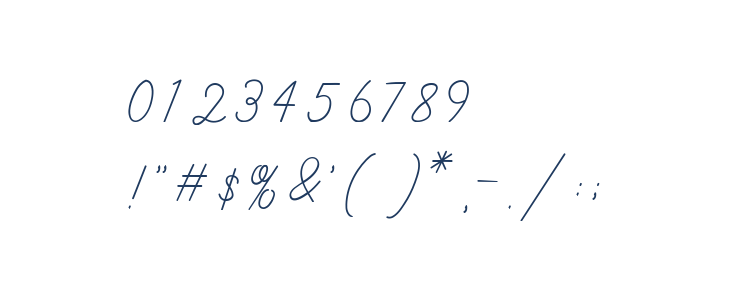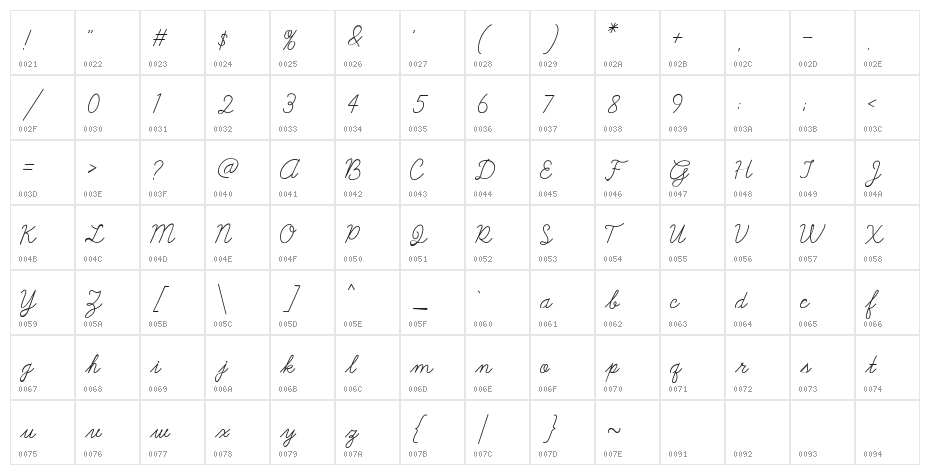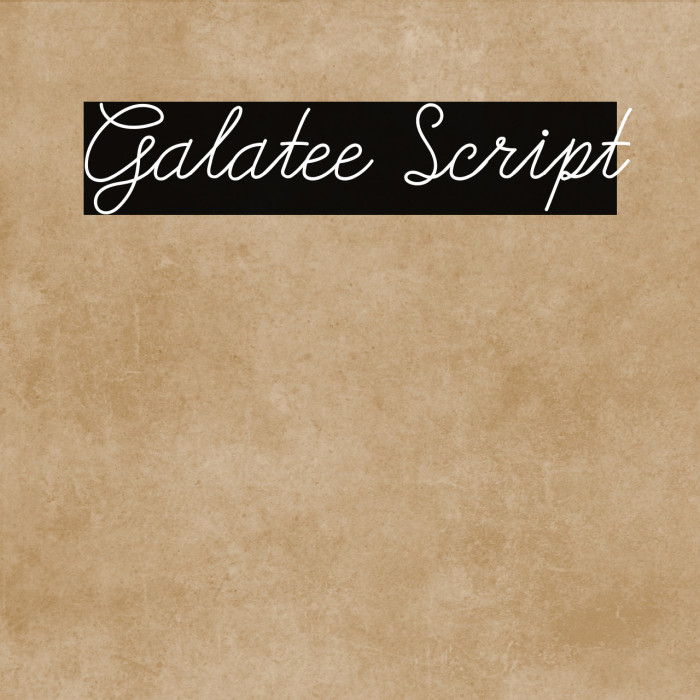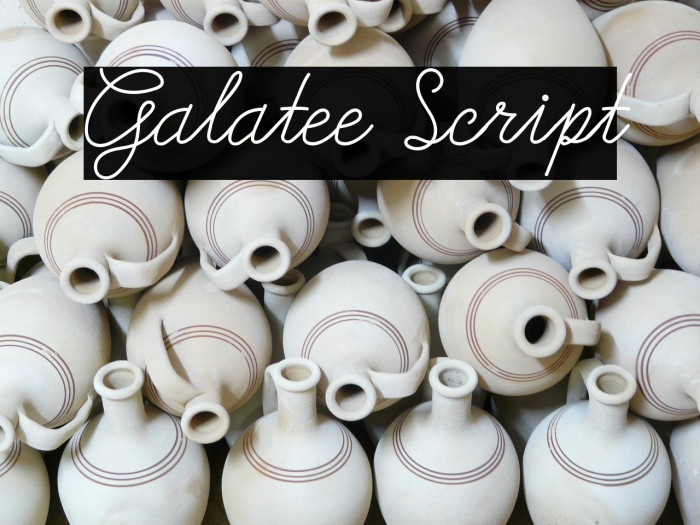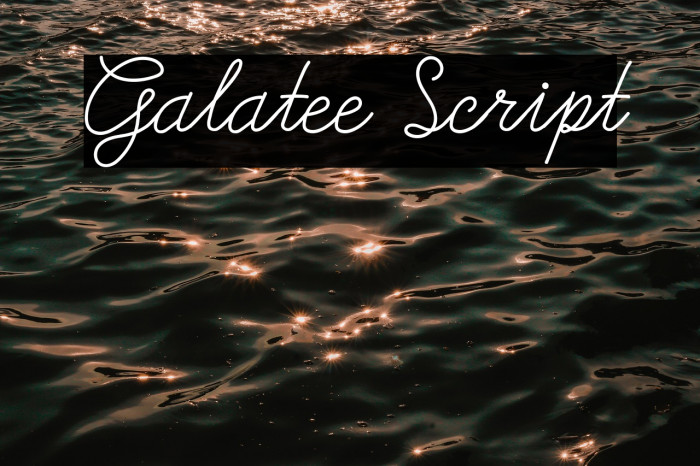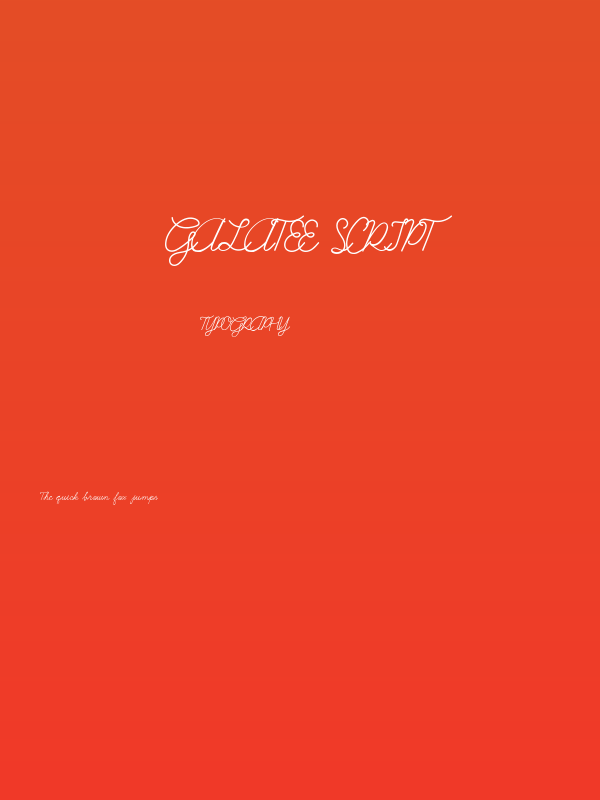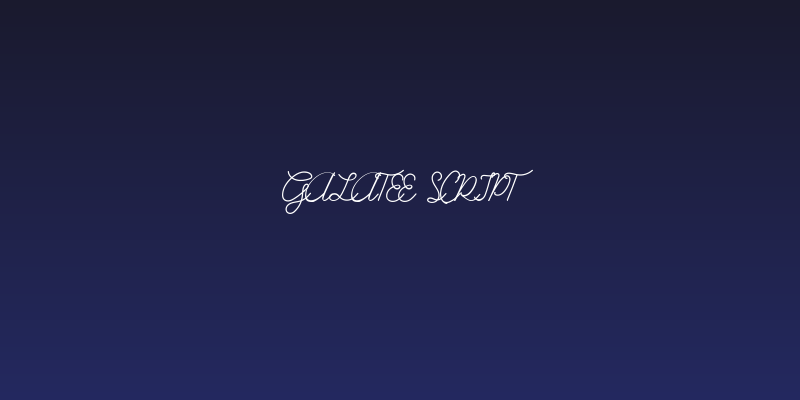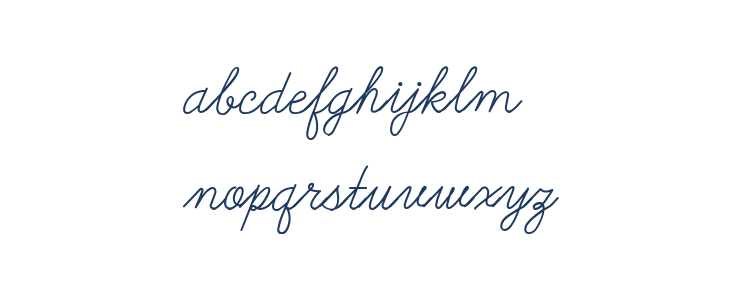
Galatee Script Font
Galatee Script Description
This elegant script font features flowing, cursive letters that exude a sense of sophistication and grace. The uppercase characters are beautifully looped and connected, creating a seamless flow that is both classic and stylish. The lowercase letters maintain a consistent slant, enhancing the script's fluidity and charm. Numbers and special characters are designed with the same attention to detail, ensuring a cohesive look across all text. The font's delicate strokes and smooth curves make it ideal for projects that require a touch of elegance and refinement.